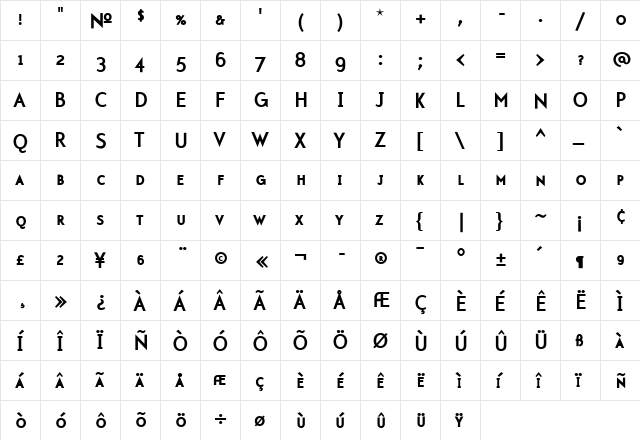
Mercury Bold
Design Context for Mercury Typeface
Mercury offers clean, dependable letterforms without strong stylistic allegiance, making it a practical choice for designers who need flexibility. Its bold stroke weight gives it real presence on the page.